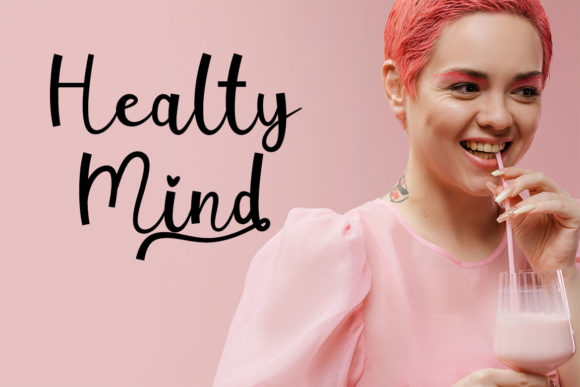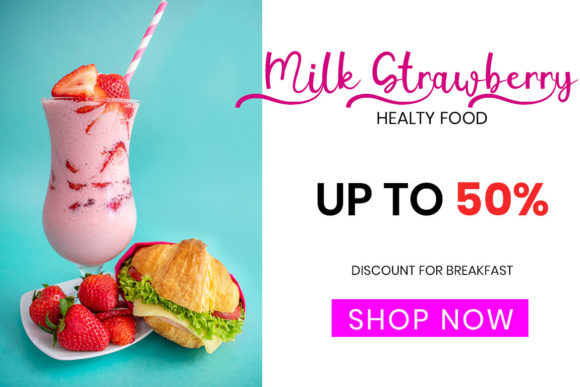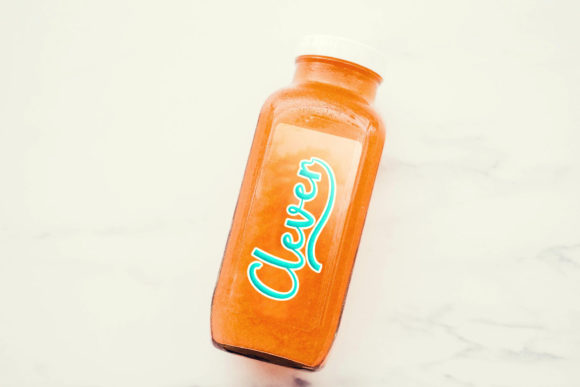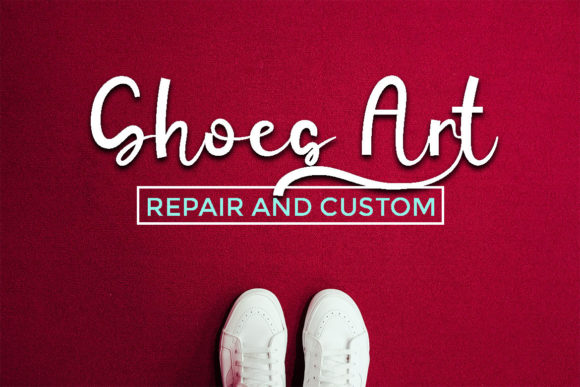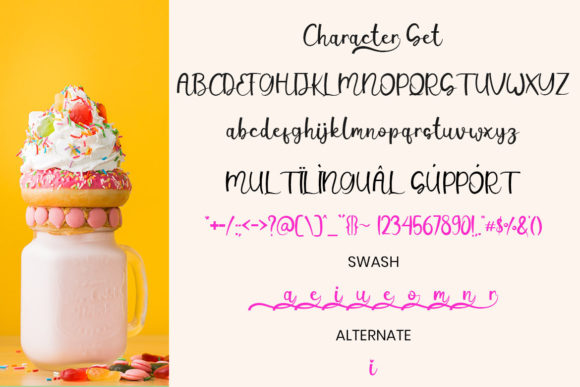
Milk Shake Font
About Milk Shake Font
Milk Shake is an exquisite and unique script font that stands out with its interesting design. With characters that dance along the baseline, this font adds a touch of luxury and sophistication to any design project you create.
The exquisite and unique nature of Milk Shake sets it apart and captures attention. The font’s carefully crafted characters create a visually appealing composition that exudes elegance. It adds a sense of luxury and style, making your designs visually striking and impactful.
Milk Shake’s interestingly designed characters bring a sense of creativity and innovation to your projects. With each letter flowing and dancing along the baseline, the font creates a visually dynamic and captivating look. It adds a touch of uniqueness and intrigue, making your design project stand out from the crowd.
By incorporating Milk Shake into your designs, you infuse them with a sense of luxury and sophistication. The font’s exquisite and interesting design adds a spark of creativity and elegance, elevating the overall look and feel of your project. Embrace the unique charm of Milk Shake, and watch as it enhances the luxury and impact of your design creations.
In summary, Milk Shake is an exquisite and unique script font that adds a touch of luxury and creativity to your designs. Its carefully crafted characters create a visually appealing composition. Embrace the interesting design of Milk Shake, and let it add a luxurious spark to your design projects, making them visually striking and captivating.